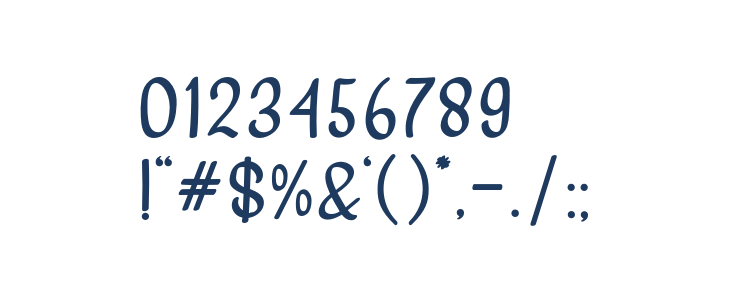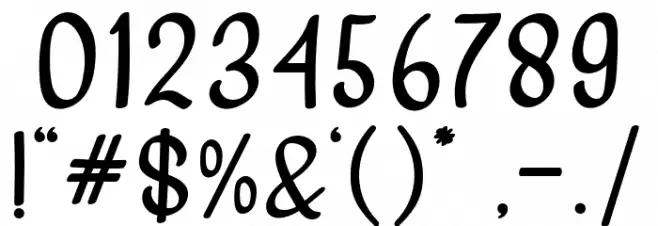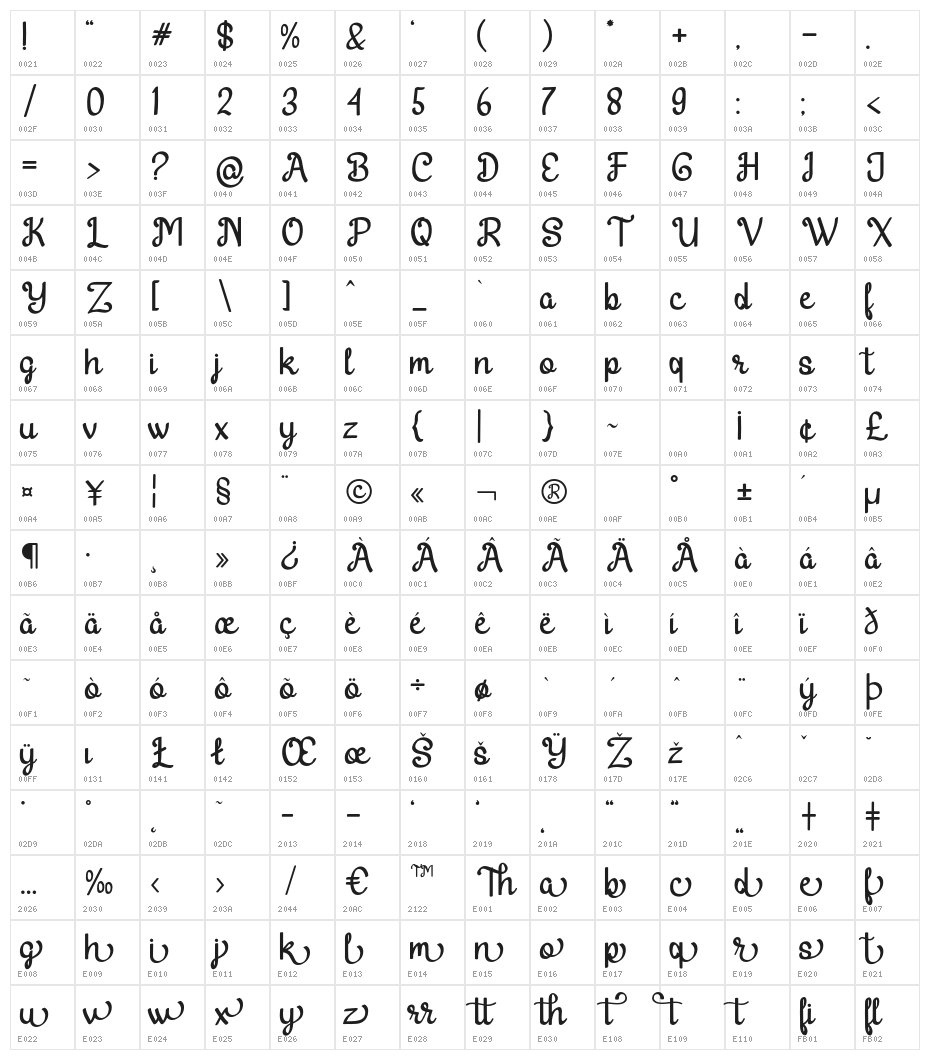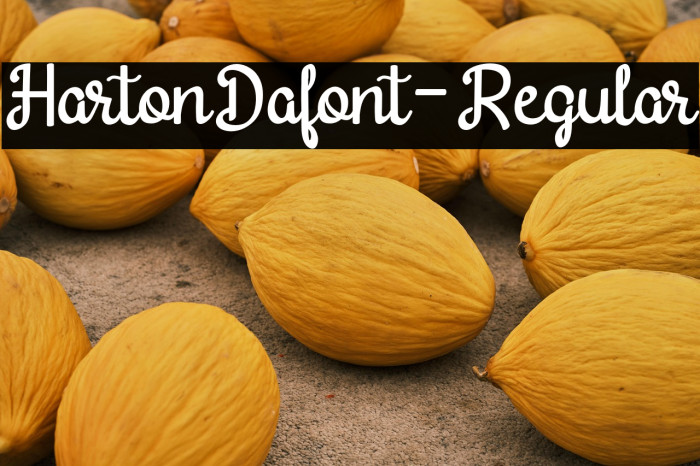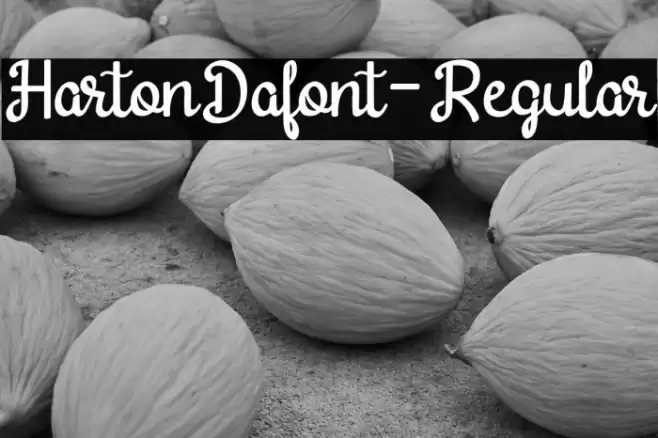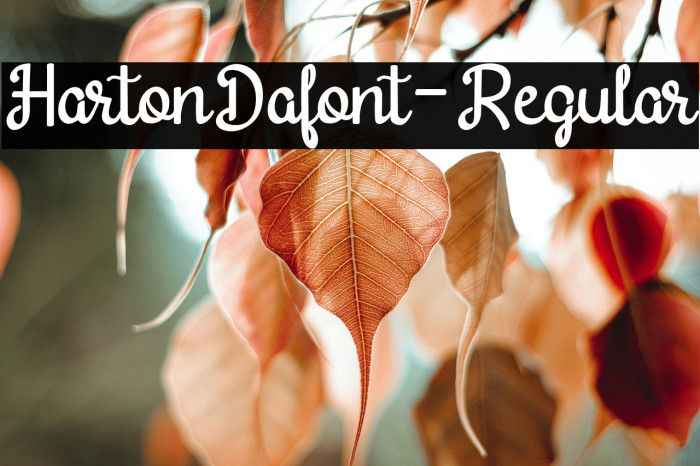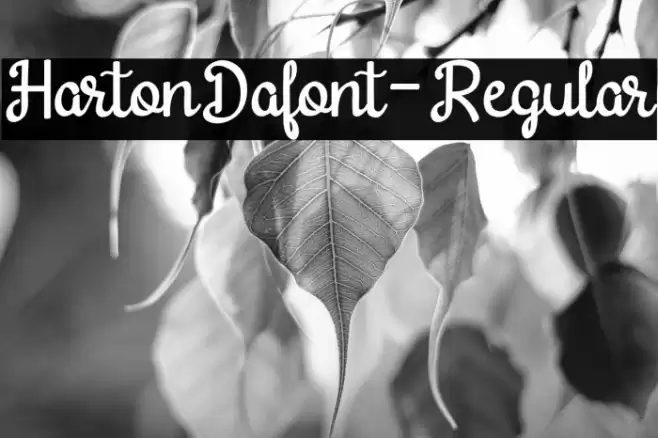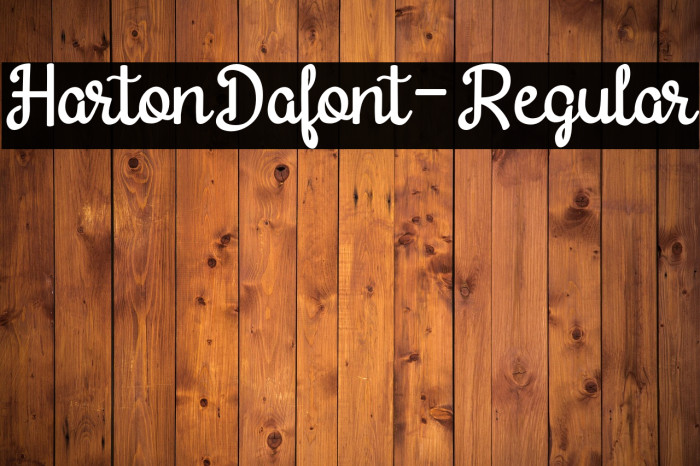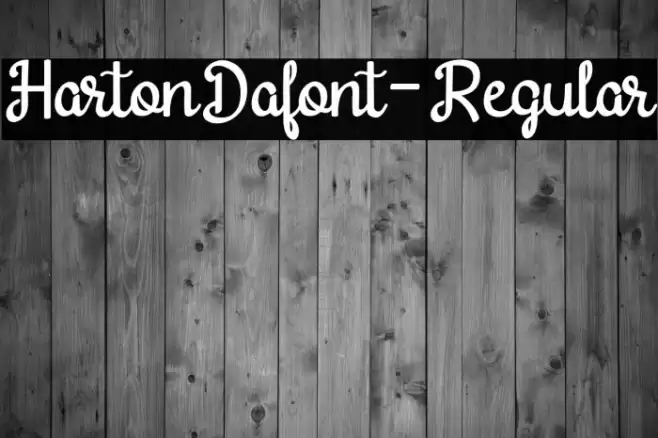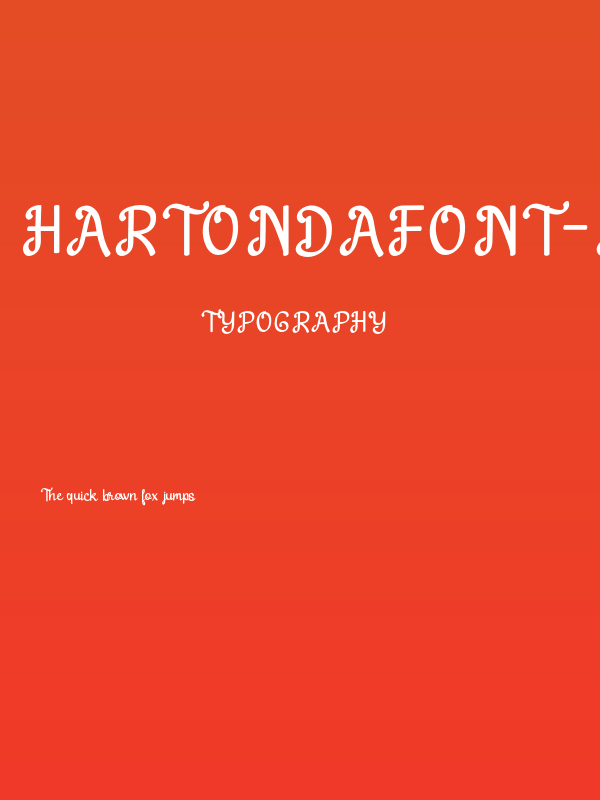
HartonDafont-Regular Font
HartonDafont-Regular Description
This font features a playful and whimsical script style with a handwritten appearance. The uppercase letters are characterized by their flowing, cursive forms, while the lowercase letters maintain a consistent, rounded shape. The numerals are clear and easy to read, matching the overall playful aesthetic. Special characters are well-integrated, adding to the font's versatility. The strokes are moderately thick, providing a bold presence without overwhelming the design. This font is ideal for projects that require a personal touch, such as invitations, greeting cards, or branding materials that aim to convey friendliness and approachability.
| Overall Style | Whimsical |
| Proposed Projects | Ideal for invitations, greeting cards, branding, and playful designs. |